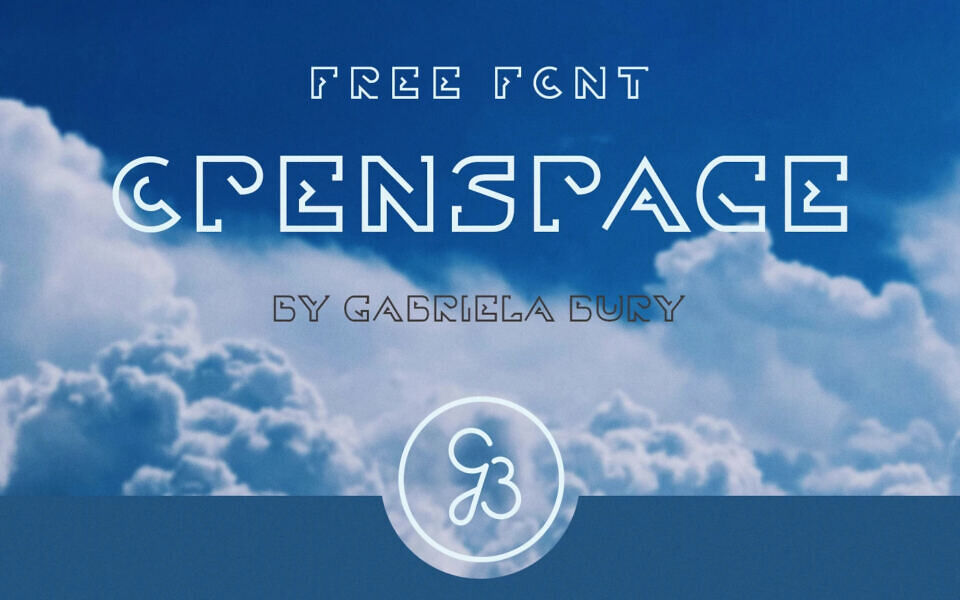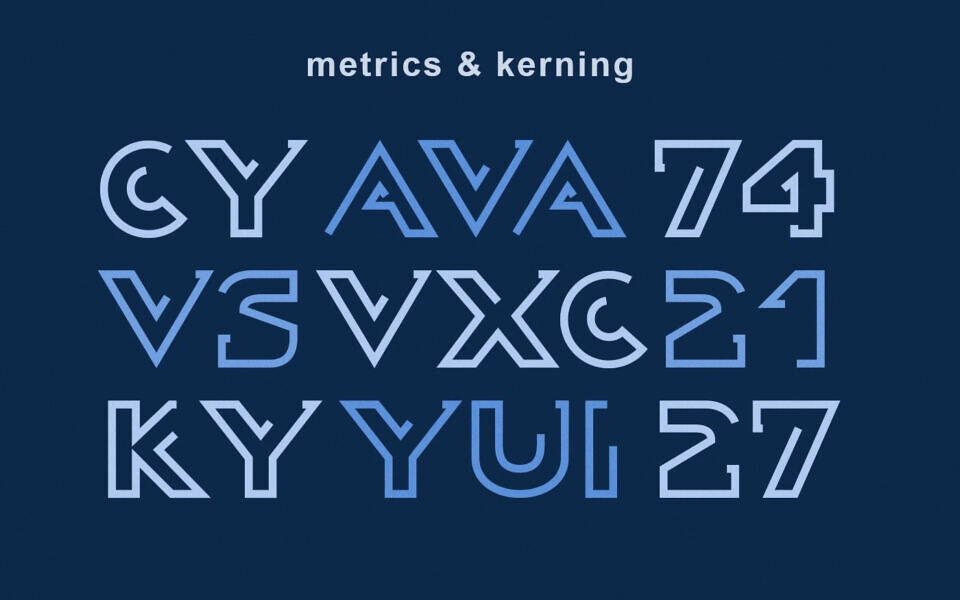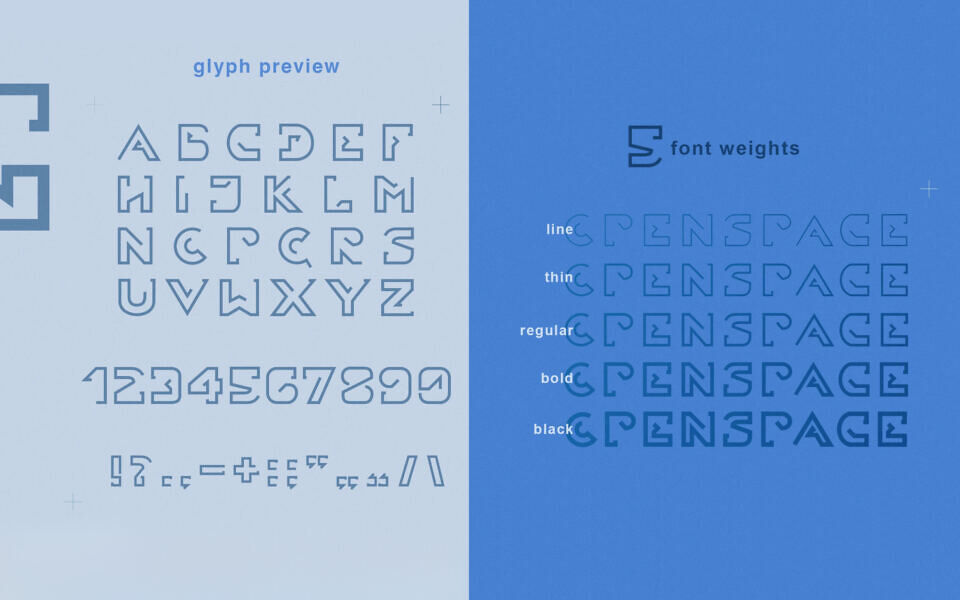
Openspace Font
Openspace is a free, futuristic display font family by Gabriela Bury designed with geometric precision and modern appeal, perfect for bold headlines, tech-inspired branding, posters, and digital interfaces.
Created from scratch with clean lines, sharp angles, and balanced proportions, it conveys a sleek, space-age aesthetic that enhances contemporary design projects. Featuring five weights with proper metrics and kerning, Openspace offers versatile styling while retaining a distinctive, high-impact look.